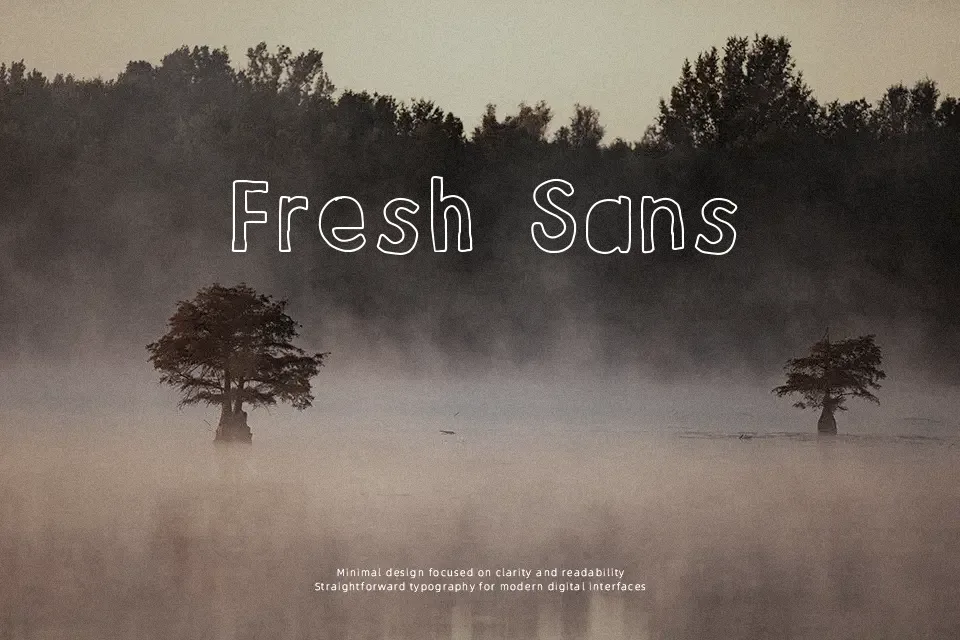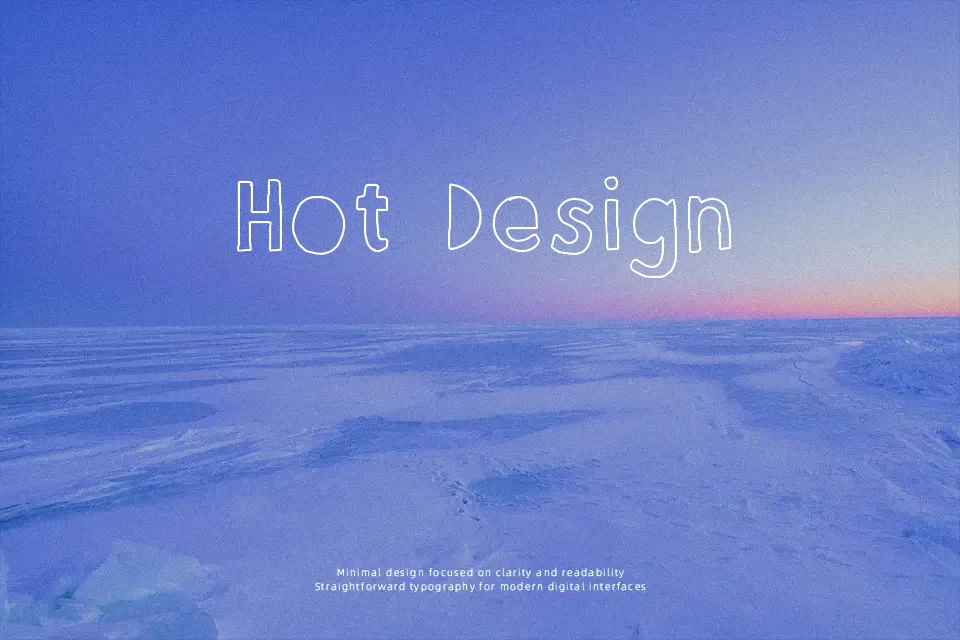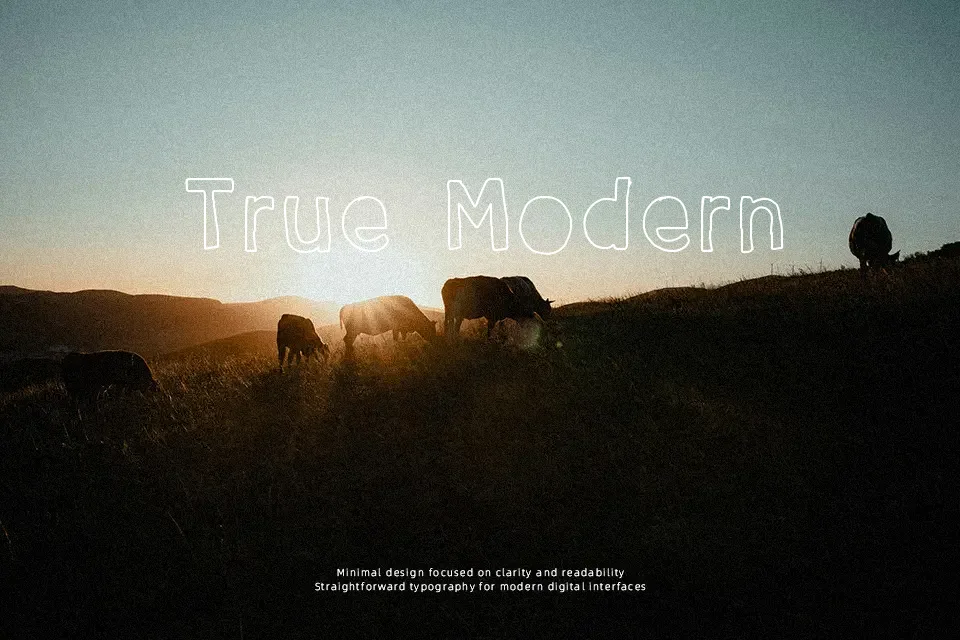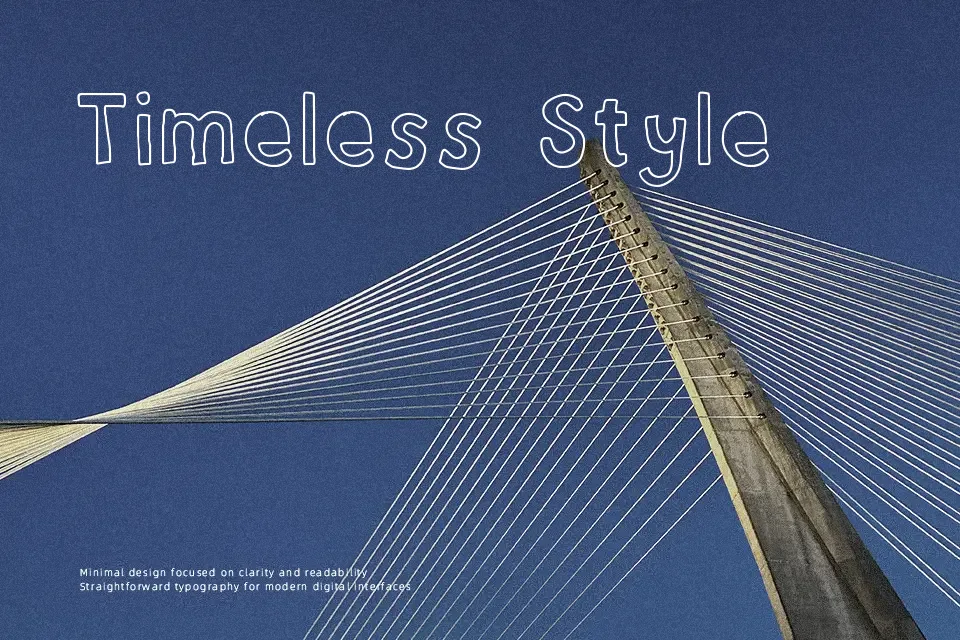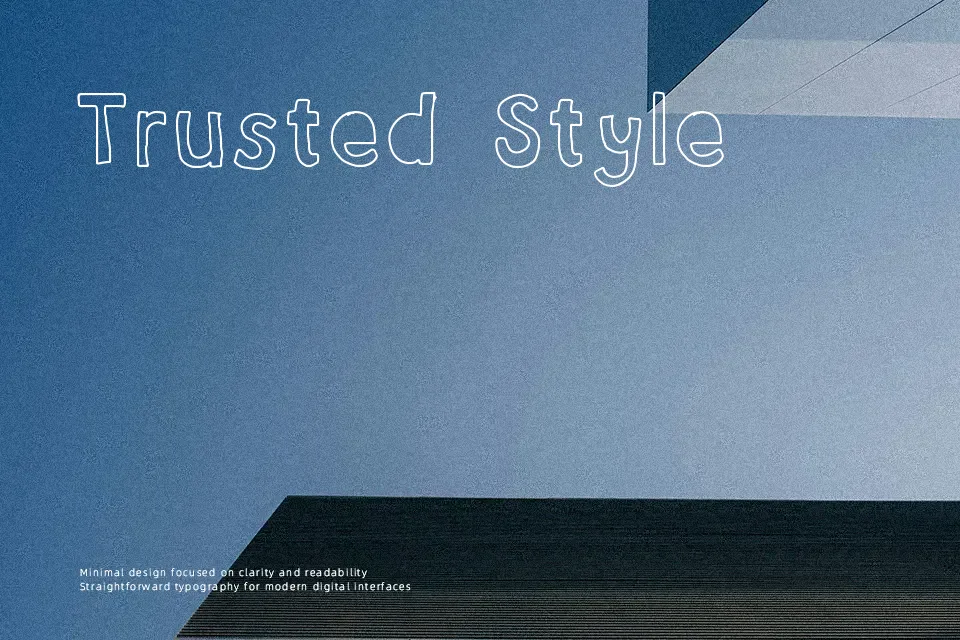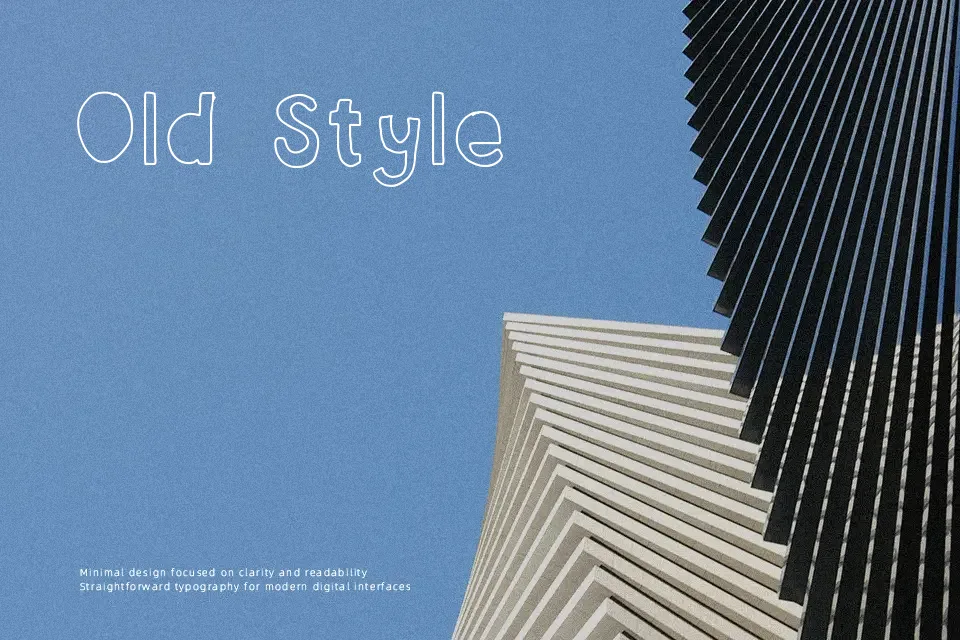
Bubble Mim Font
Designed by Miriam Malein
Bubble Mim is a bold, rounded display face with soft curves, generous counters, and slightly uneven strokes that give it a friendly handmade look. The letters sit fairly wide, so words feel airy and easy to read at larger sizes, but they can look crowded if you try to squeeze long text blocks. It leans strongly into a casual, cartoon mood, which suits birthday posters, children’s branding, playful logos, and event signage far more than anything corporate or formal. If you like bubble lettering and comic-style titles but want something a bit neater than graffiti fonts, this hits a nice middle ground, as long as you accept its missing punctuation and limit it to short, punchy messages.
kids event posters and flyers
playful party invitations and banners
cartoon-style social media graphics
lighthearted logo wordmarks for youth brands
formal branding or professional reports
interfaces or small-size UI text
projects needing full punctuation support
Perfect for advertising, kids, and logo, with a creative and cartoon style.